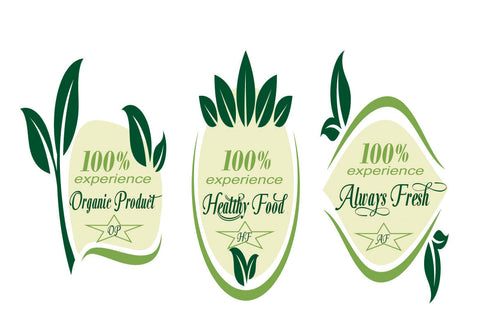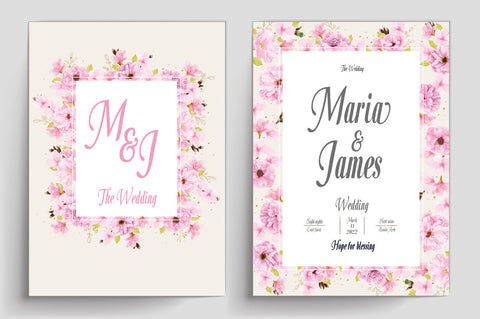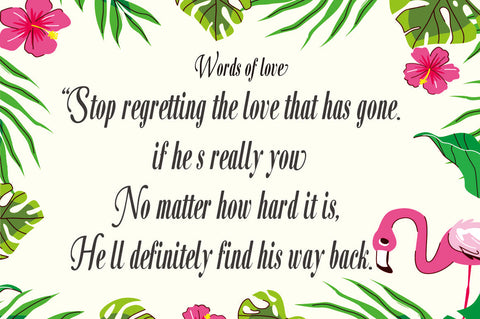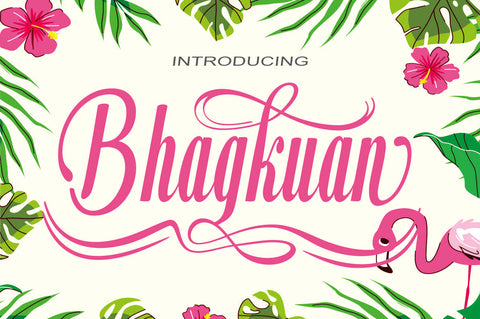
Bhankuan
Bhankuan is a romantic typography.elegant & fun vintage script font. Can be used for various purposes. such as logo, wedding invitation, t-shirt, letterhead, signboard, news, poster, badge etc.